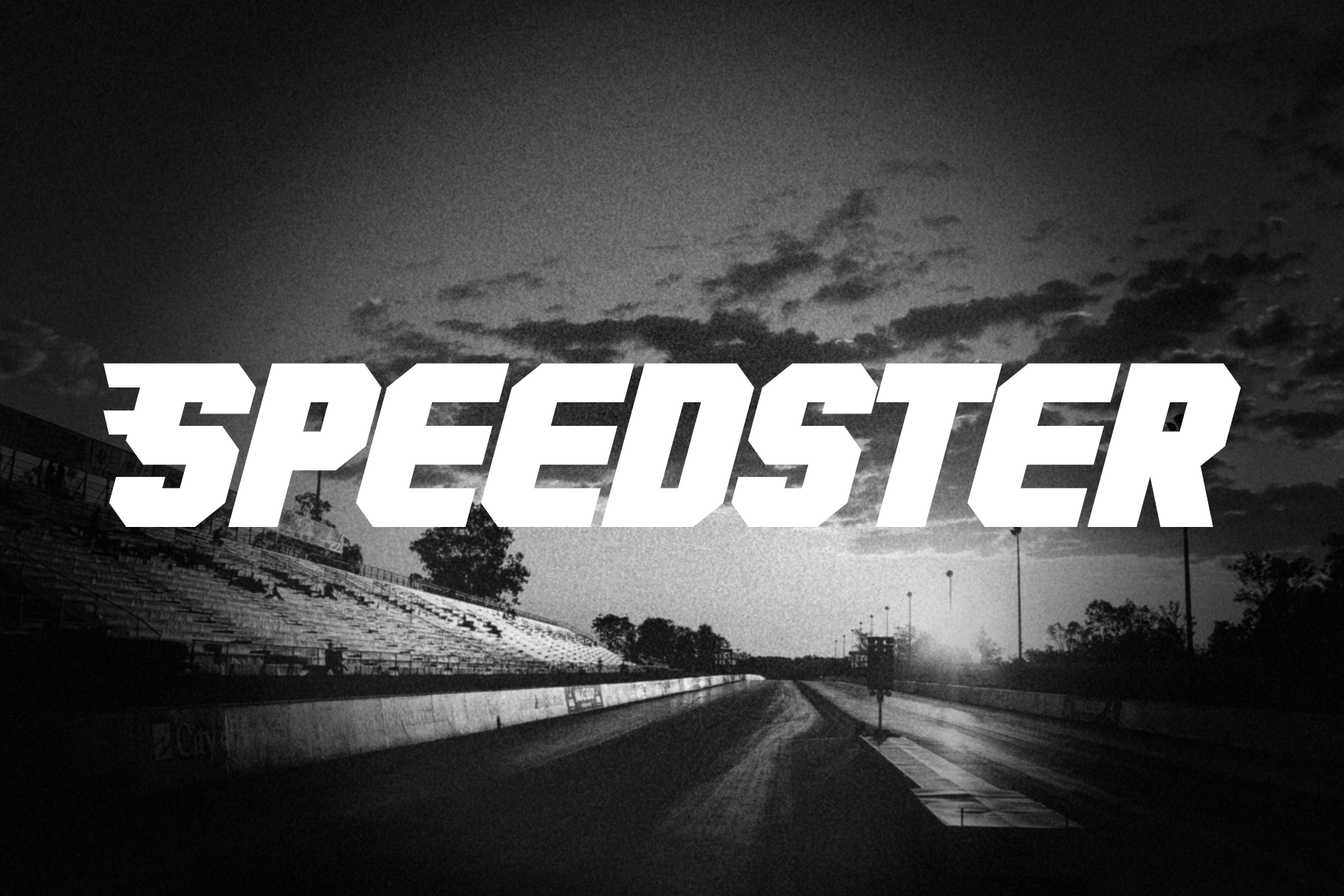
Speedster Font
Introducing, Speedster - a fast paced font.
This item consist of 6 style: • Pit Lane • Pit Lane Rounded • Starting Line • Starting Line Rounded • Speedster • Speedster Rounded